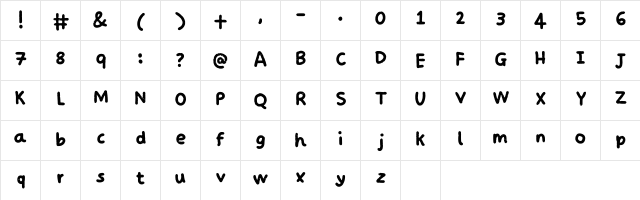
Dry Whiteboard Marker Regular
Design Context for Dry Whiteboard Marker Typeface
Dry Whiteboard Marker is a composed and adaptable typeface that performs quietly and consistently across a wide range of design contexts.